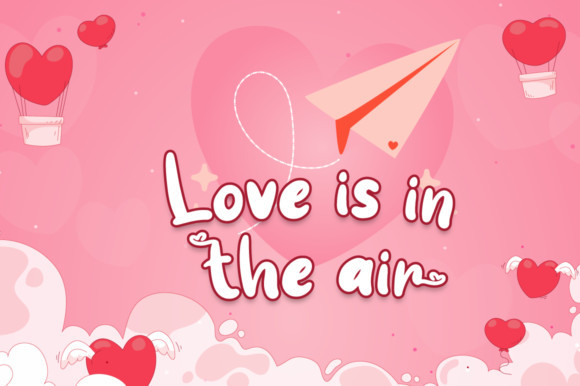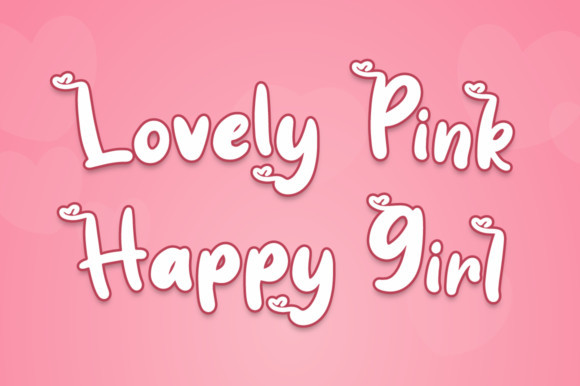
Little Love Font
Little Love is a cute display font with a romantic theme. Add this chunky lettered font to your designs and notice how it makes them come alive!